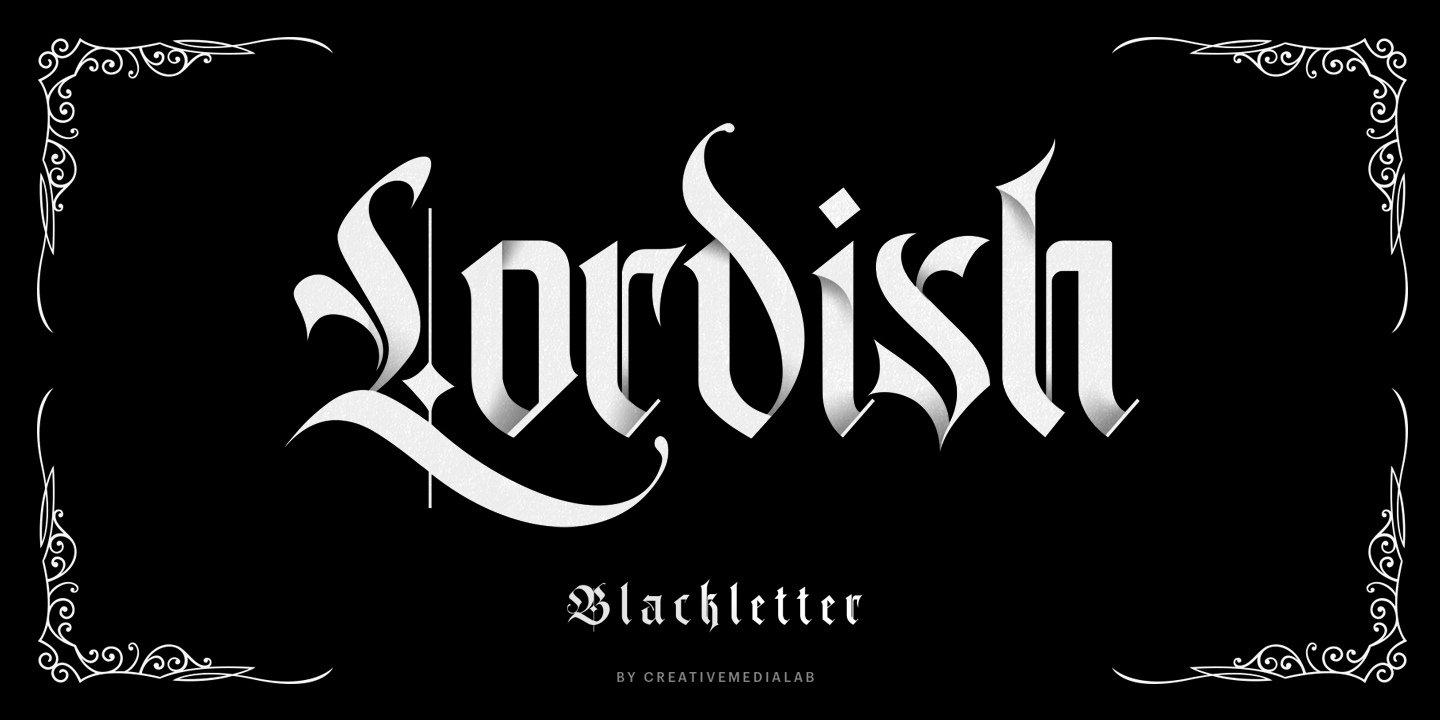
Lordish Font
This aristocratic typeface is perfect for luxury brands, royal ceremonies, prestigious awards, noble estates, high-end hospitality, ceremonial documents, exclusive clubs, heritage organizations, and distinguished design applications.
What makes this font exciting is its noble authority combined with aristocratic refinement, offering designers a regal typeface that captures the essence of lordly distinction while delivering imperial sophistication and distinguished visual excellence.
The Lordish font family includes light, regular, medium, bold, royal, and ceremonial variations, providing complete aristocratic design solutions for creating prestigious noble visual identities.
Lordish Font features carefully crafted aristocratic styling with authentic noble character that conveys genuine distinguished expertise. Each character has been designed with regal proportions and ceremonial elements that enhance the prestigious aesthetic. The font's aristocratic qualities make it particularly effective for luxury brands and ceremonial applications.
Professional designers choose Lordish Font for projects requiring authentic aristocratic credibility and noble atmosphere. Its distinguished heritage makes it exceptionally well-suited for luxury hotels, exclusive organizations, and prestigious lifestyle brands. The font's versatile regal variations allow designers to control the aristocratic intensity, from subtle noble elegance to full ceremonial celebration.
The complete Lordish Font package offers extensive aristocratic ornaments and noble decorative elements that enhance the prestigious aesthetic. Advanced ceremonial features allow designers to create complex aristocratic effects with multiple distinguished-inspired options. This comprehensive noble toolkit ensures designers have everything needed to create authentic aristocratic communications that celebrate the timeless power of distinguished heritage and lordly design excellence.